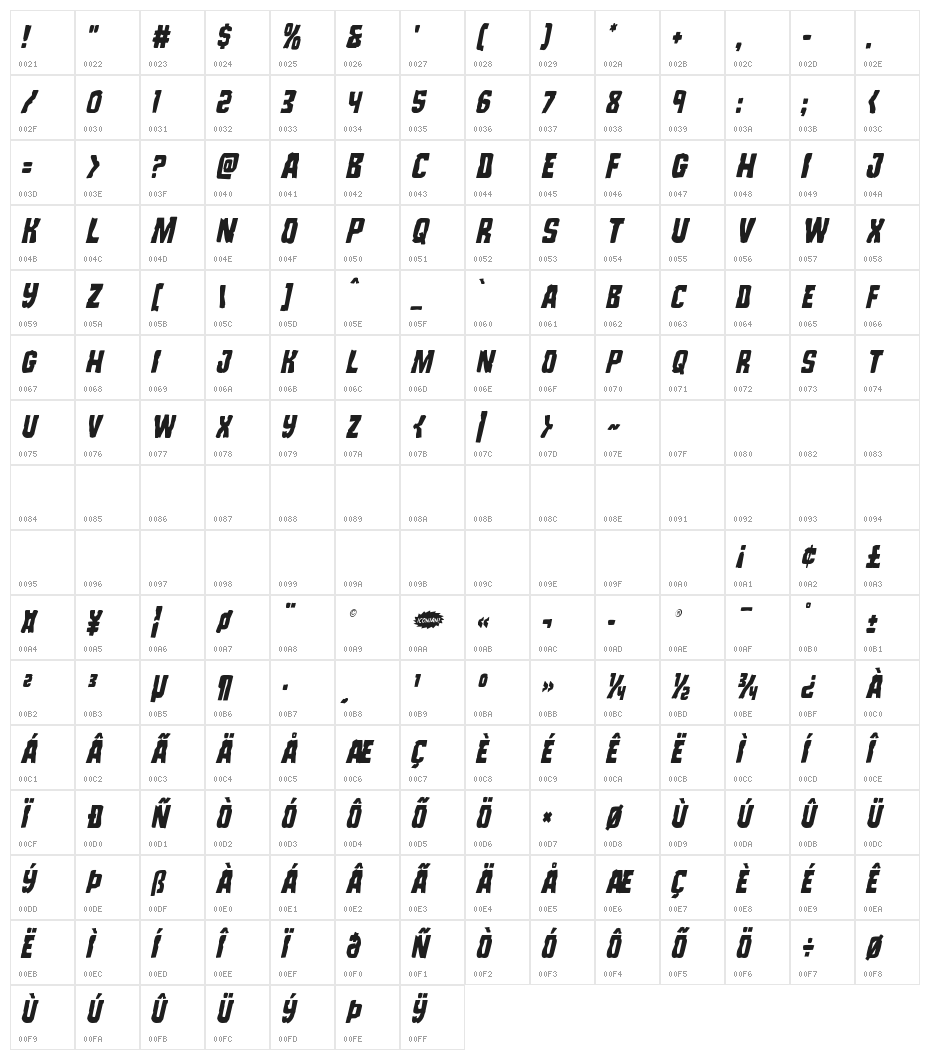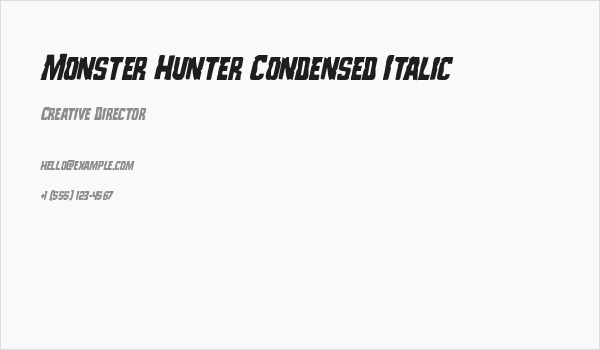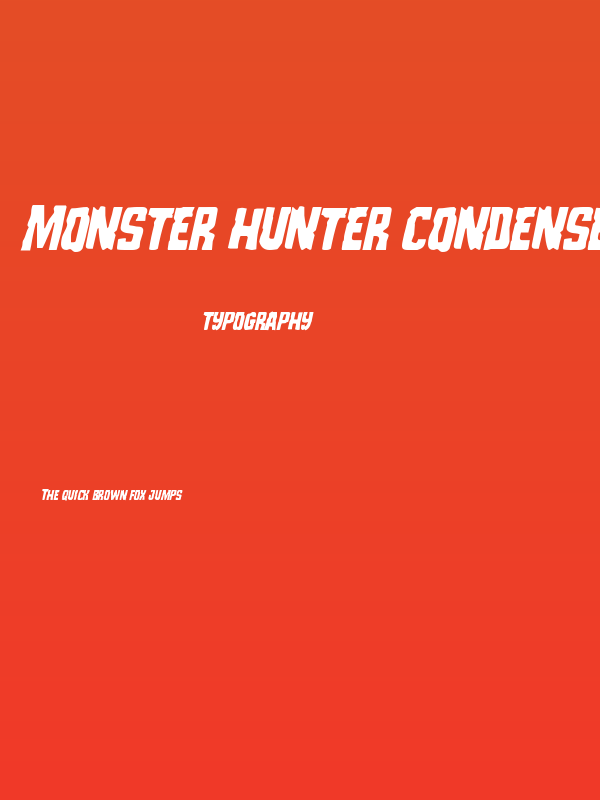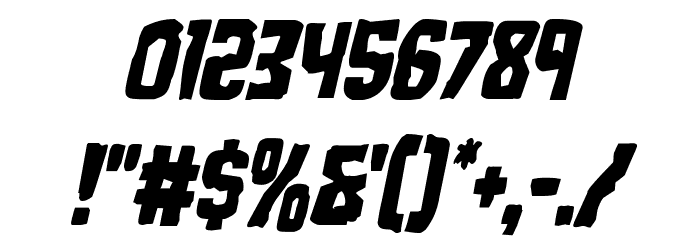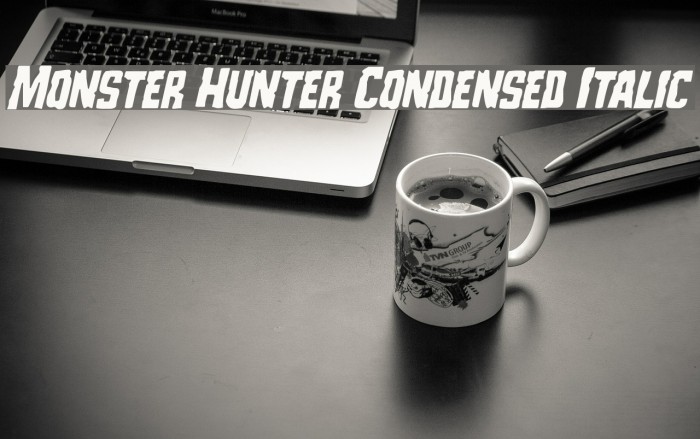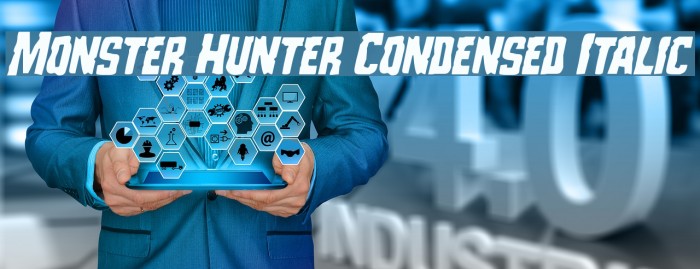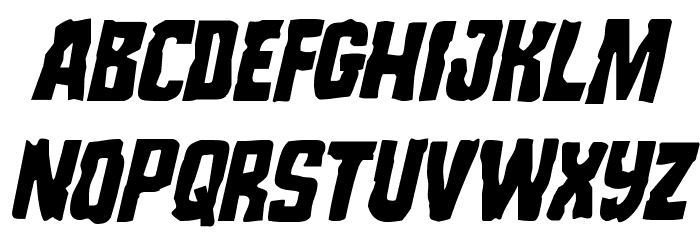
Monster Hunter Condensed Italic Font
Monster Hunter Condensed Italic Description
This font features a bold and dynamic style with a condensed and italicized form. The characters are robust and angular, giving a sense of movement and energy. The uppercase and lowercase letters maintain a consistent weight, with sharp edges and a slightly aggressive stance. The numbers and special characters follow the same design principles, ensuring uniformity across all glyphs. The font's condensed nature makes it suitable for space-saving applications while still delivering a strong visual impact.
| Proposed Projects | Ideal for video game titles, action movie posters, sports branding, and dynamic advertising campaigns. |